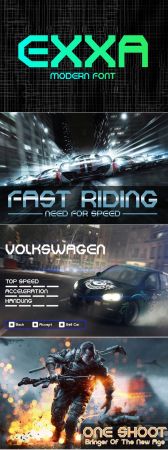
DesignOptimal - Exxa Font
Exxa is a beautiful and futuristic display font. This thick and modern font is best suited for titles, headlines, films, games and looks great in any science-related themes!